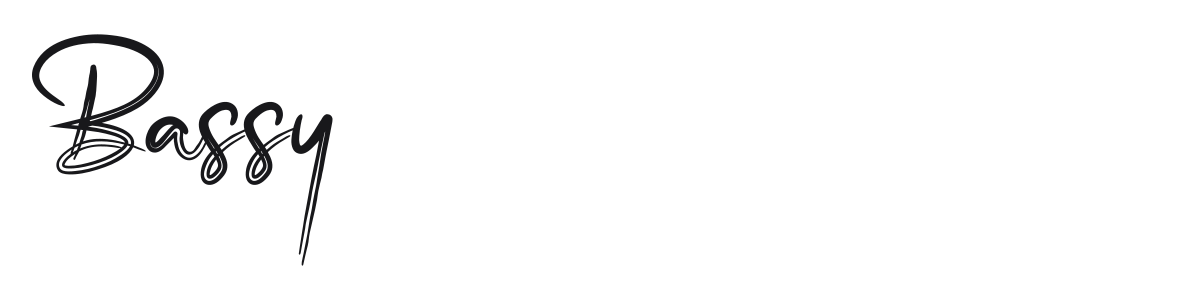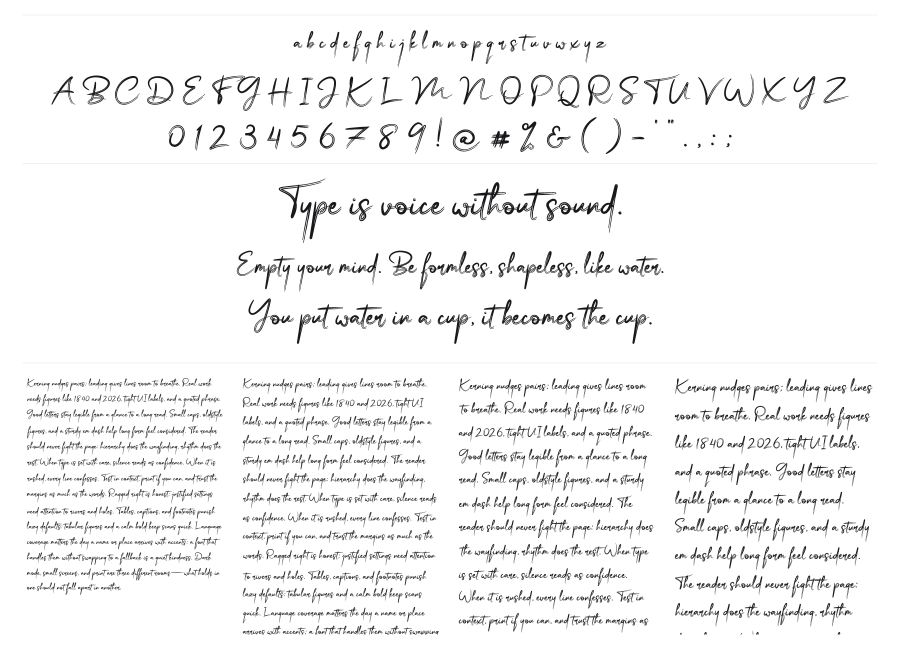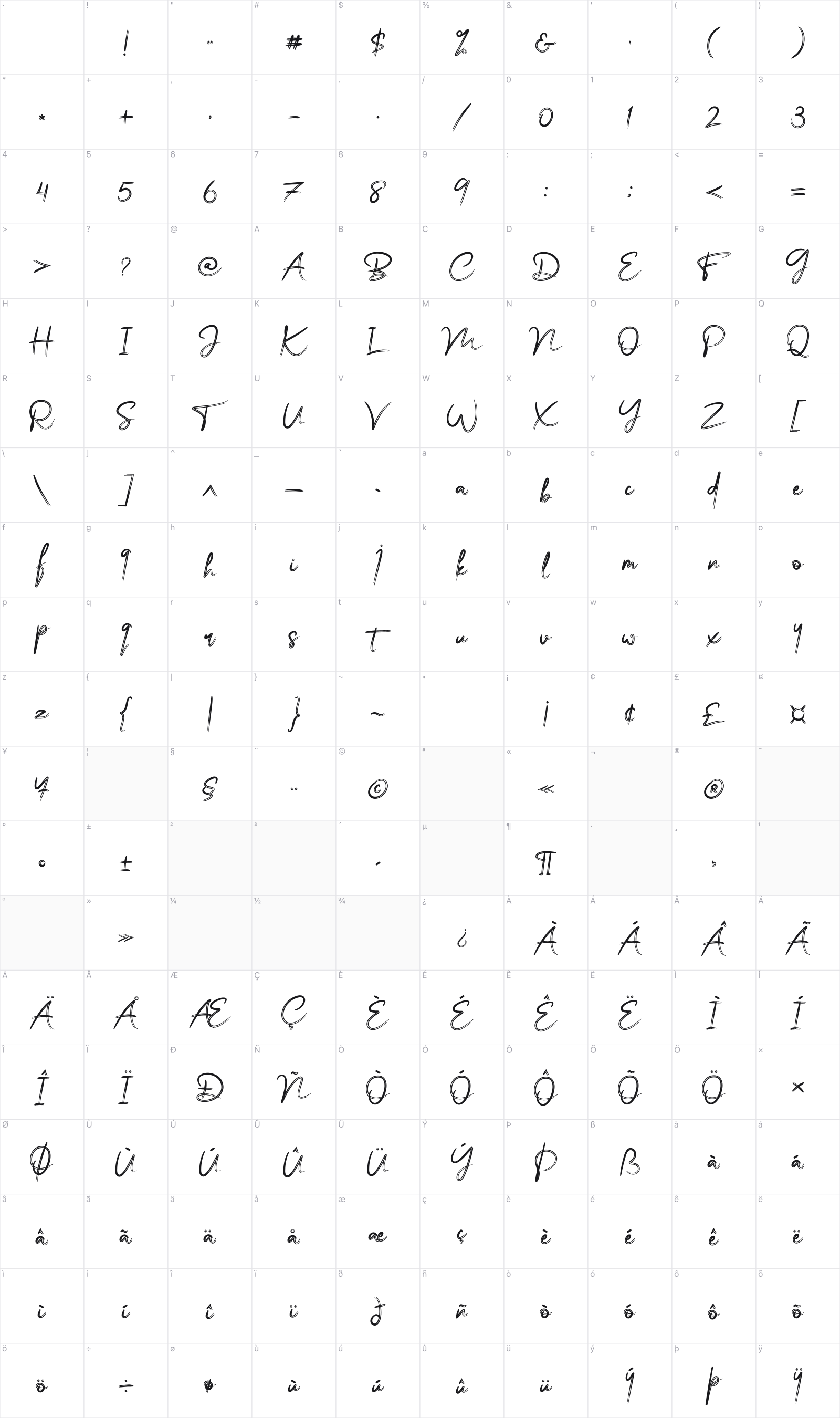
Bassy
Bassy is a casual connected script with flowing loops and a relaxed, hand-penned energy. The interweaving ascenders and double-line flourishes give it a lively, spontaneous character that reads well at large sizes. It suits brand identities, packaging, and social content where warmth and informality are the point.